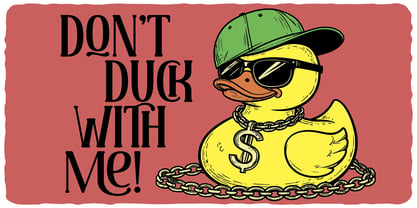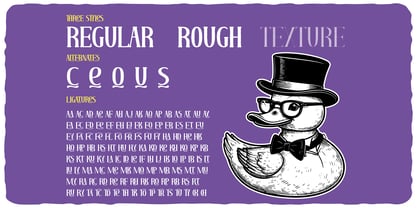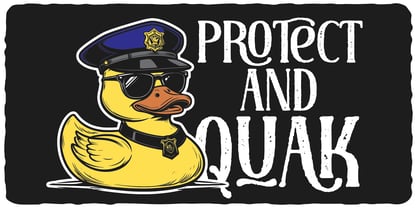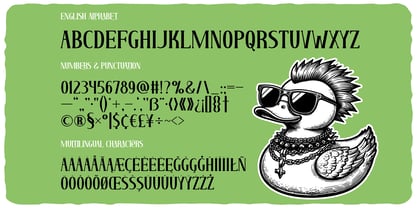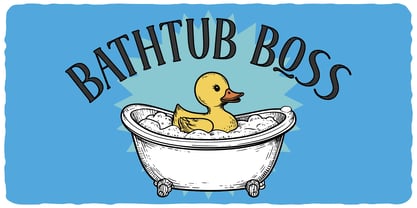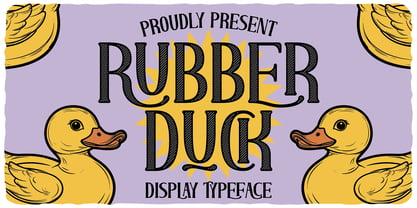
Rubber Duck
by Vozzy
The Rubber Duck Font Family was designed by Oleg Voznyy and published by Vozzy. Rubber Duck contains 3 styles and family package options. More about this family
Introducing the "Rubber Duck" font, a distinctive typeface perfect for headlines, accent inscriptions, and capturing attention. This font features a wide array of additional characters, punctuation marks, and multilingual options, along with an extensive selection of standard ligatures—ensure your software supports these OpenType features for optimal use. Ideal for branding, web design, and editorial projects, the "Rubber Duck" font will enhance your creative designs with its playful and engaging style.
Designers: Oleg Voznyy
Foundry: Vozzy